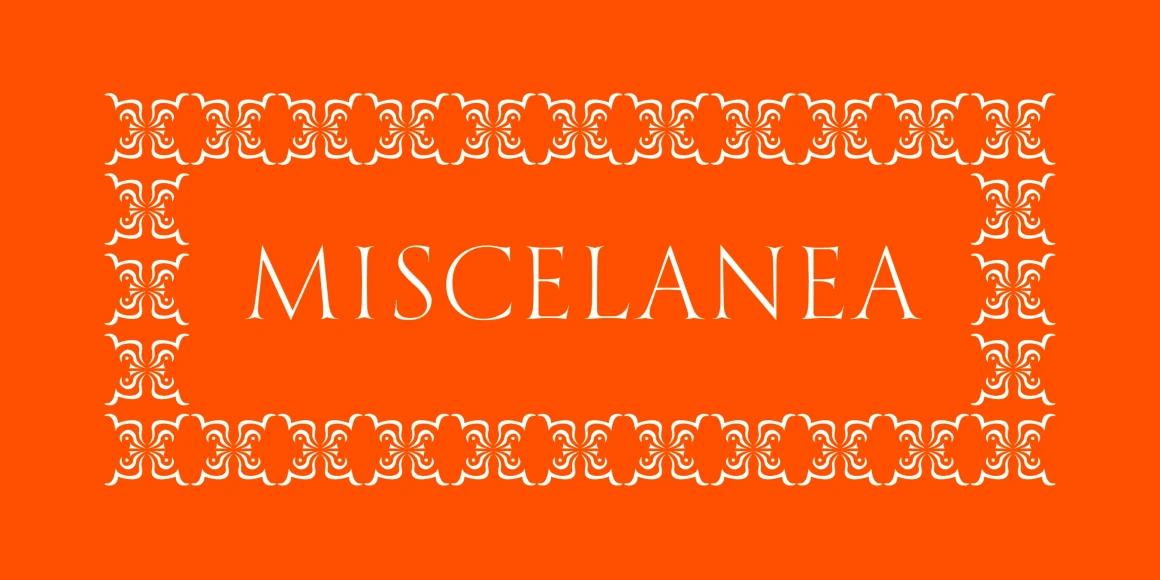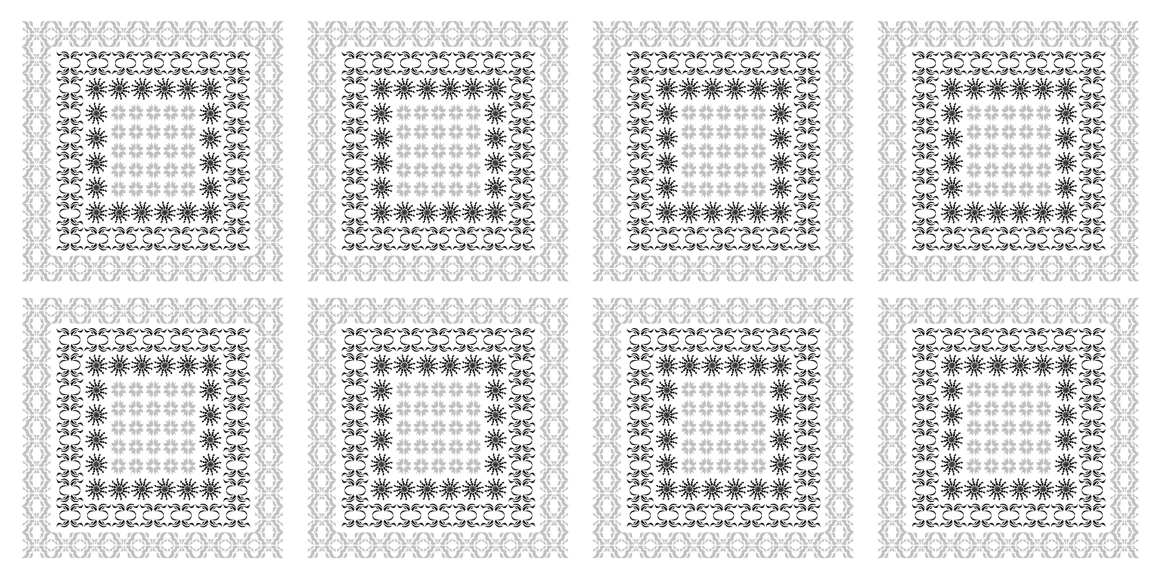
Miscelanea
From Sproviero Type
Miscelanea is an ornamental dingbat collection designed to catch the eye. Each glyph is a flourish of symmetry and movement — perfect for building patterns, creating borders to frame text, or adding decorative accents. Whether used individually or repeated to form striking motifs or backgrounds, these shapes bring rhythm and richness to packaging, posters, textiles, and editorial spreads. A playful yet polished way to dress up your design work.
Designed by Maximiliano Sproviero